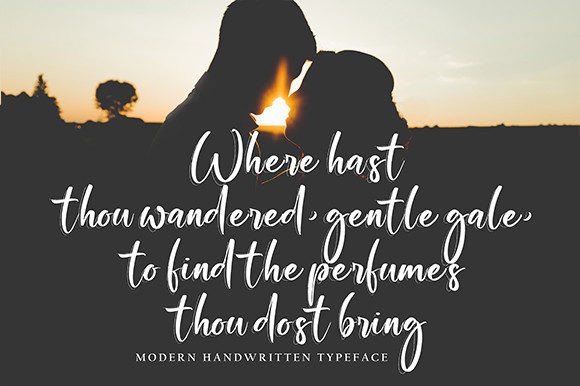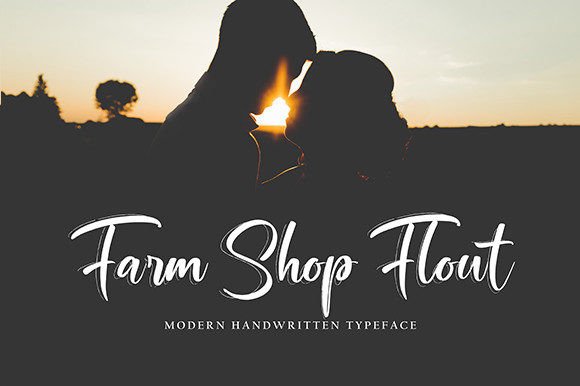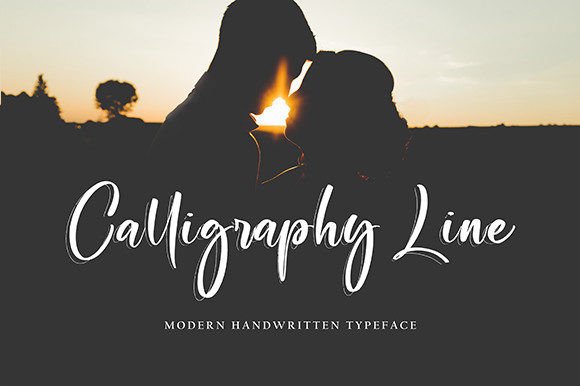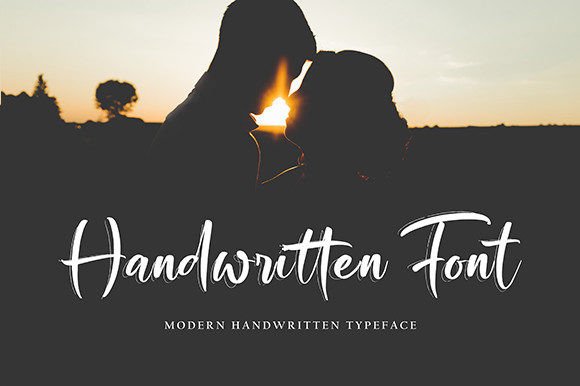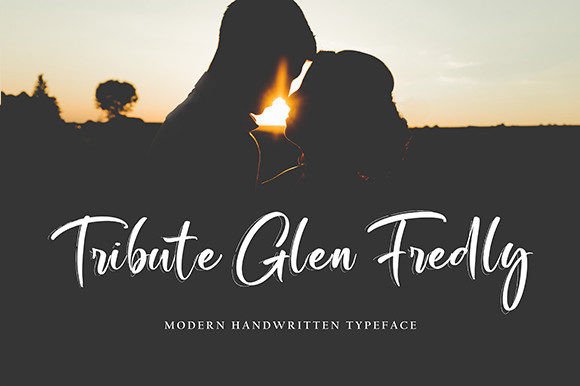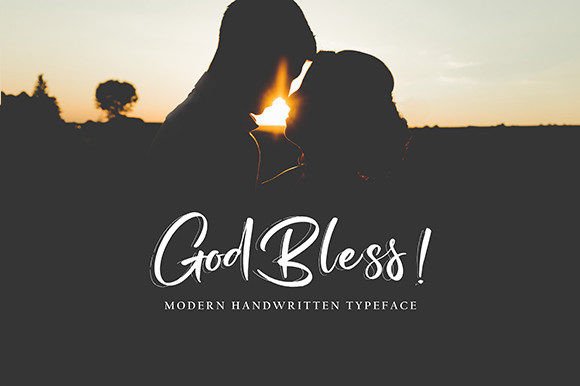
Introduction to Jhonatan Font
Do you remember that moment when you stumbled upon the perfect font for your creative project, and suddenly, everything just clicked? It’s like a spark of inspiration that sets your imagination ablaze. For designers, finding the right font can be a game-changer, elevating a simple idea into a stunning piece of art.
Enter the Jhonatan Font, a beautiful and versatile typeface that’s sure to become your go-to design resource. With its classic typography roots and unique style, this font is perfect for designers looking to add a touch of elegance to their projects. Whether you’re working on a free download for Instagram or a high-quality design for a commercial project, the Jhonatan Font is an excellent choice.
Key Features of Jhonatan Font
- High-quality font designed for creative projects, ideal for use in graphic design, digital art, and more.
- Includes 4 styles and 20 characters, providing a versatile set of options for creative expression.
- Perfect for use in digital art, graphic design, logos, and other creative projects where a unique and eye-catching font is required.
Honest Review: Jhonatan Font
As a designer, I’m always on the lookout for high-quality design resources to enhance my creative projects. Recently, I came across the Jhonatan Font, and I wanted to share my honest review with you.
What works well: ✨ I was impressed by the font’s versatility and the fact that it’s available for free download. The transparent background made it easy to integrate into my designs, and the high quality ensured that my text looked crisp and clear. The font’s unique style also added a touch of sophistication to my creative project.
What I’d like to see improved: ⚠️ While the font is great, I did encounter some limitations. The font family is relatively small, and I wish there were more weights and styles to choose from. Additionally, the font may not be suitable for all types of projects, particularly those requiring a more traditional or formal look.
Overall, I’d say the Jhonatan Font is a solid addition to any designer’s toolkit. Its unique style and high quality make it a great resource for creative projects, and the free download option is a bonus. However, it may not be the best choice for every project, so be sure to use it judiciously.
- Pros: versatile, free download, high-quality, transparent background
- Cons: limited font family, may not be suitable for all projects
The Jhonatan Font is commonly used for creating logos, business cards, and marketing materials. It’s also ideal for designing social media graphics, presentations, and documents. With its high-quality design and transparent background, the Jhonatan Font is a popular choice among designers and creatives.